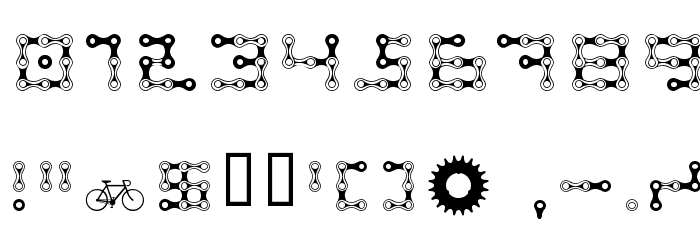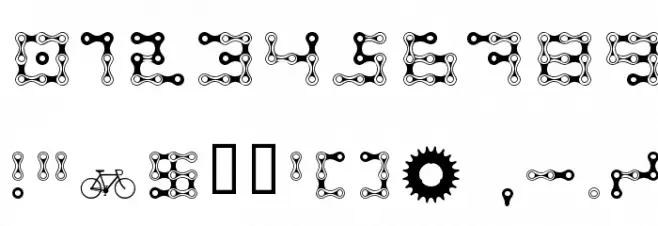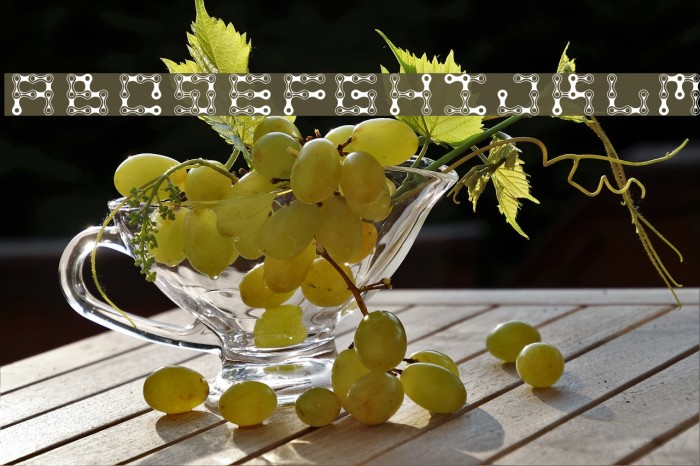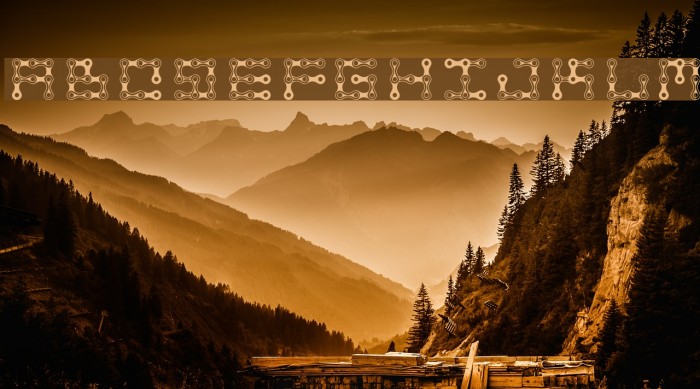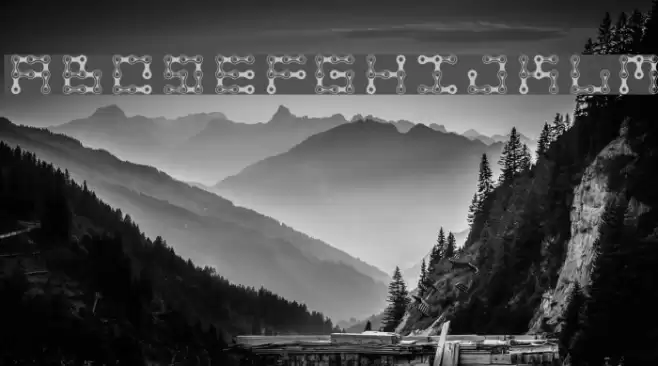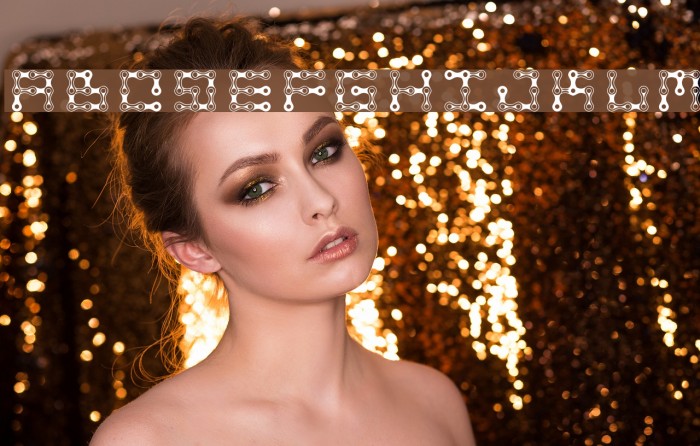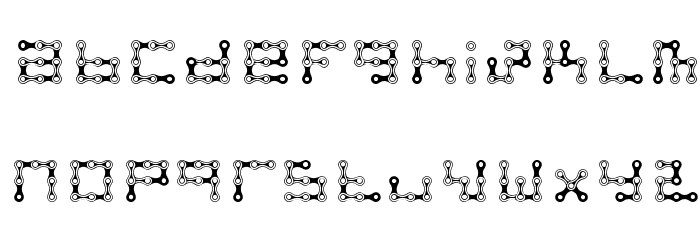
FK Chain Font
FK Chain Description
This font features a unique design inspired by bicycle chains, with each character resembling interconnected links. The letters and numbers are constructed with a combination of circular and linear elements, creating a mechanical and industrial aesthetic. The font maintains a consistent structure across uppercase, lowercase, and numerical characters, with special symbols also reflecting the chain motif. The overall appearance is bold and eye-catching, making it suitable for creative and thematic projects.
| Overall Style | Modern, Industrial |
| Use Case | Logos, Posters, Thematic Designs |
| Proposed Projects | Ideal for cycling-related branding, mechanical-themed posters, or any project requiring a distinctive and thematic typeface. |